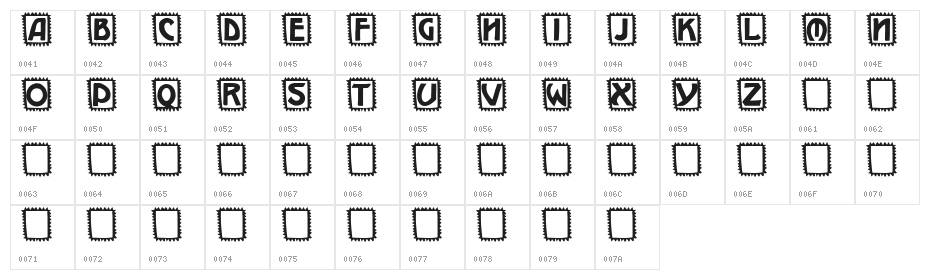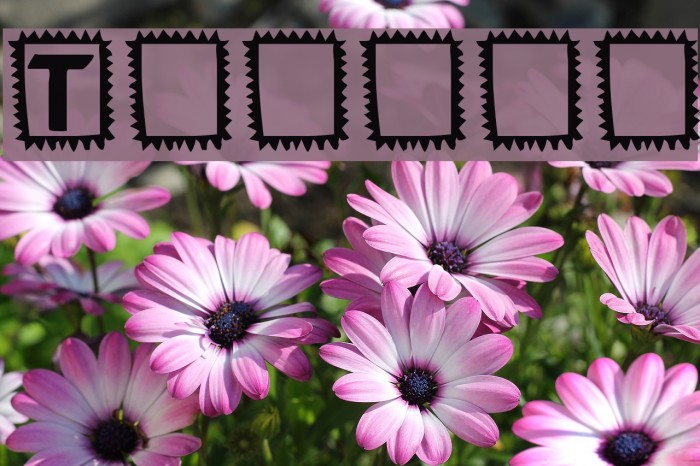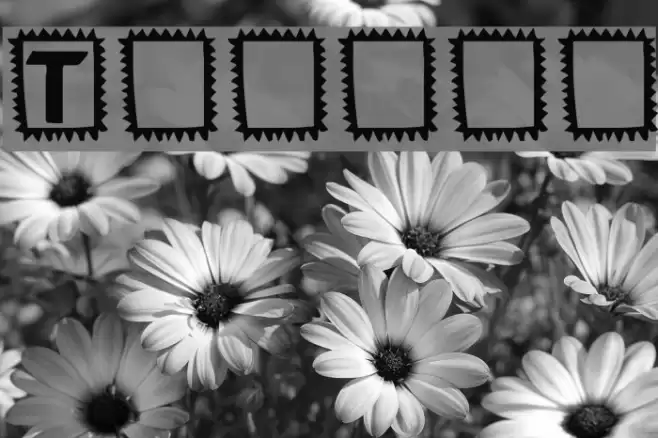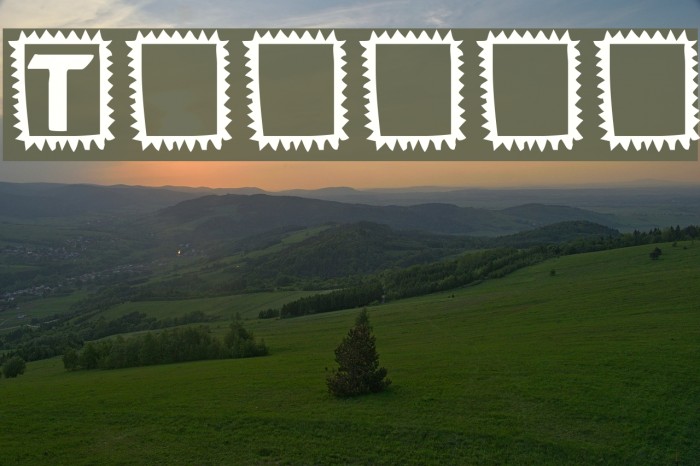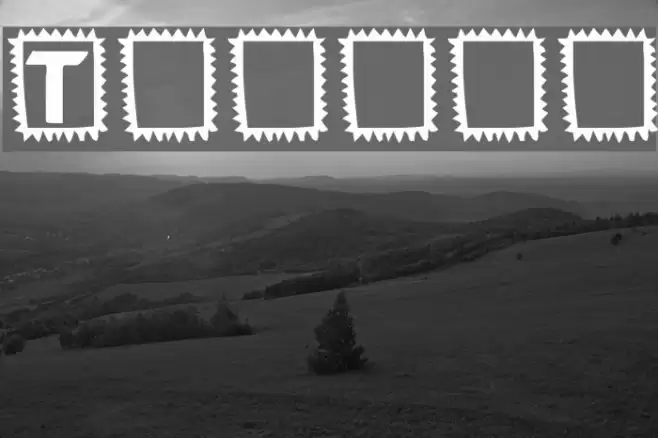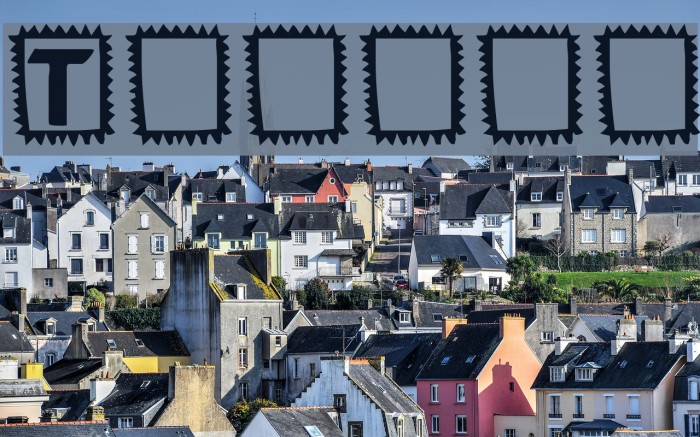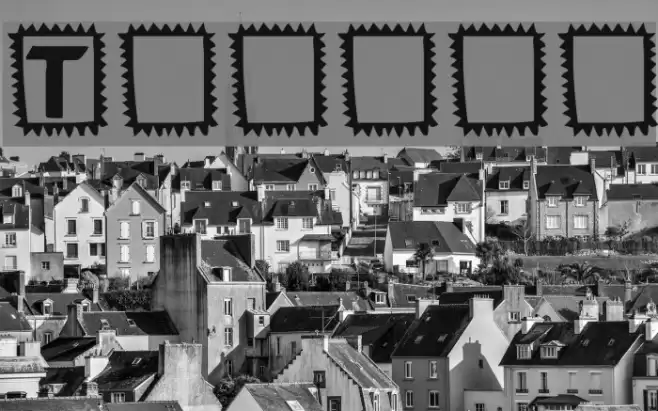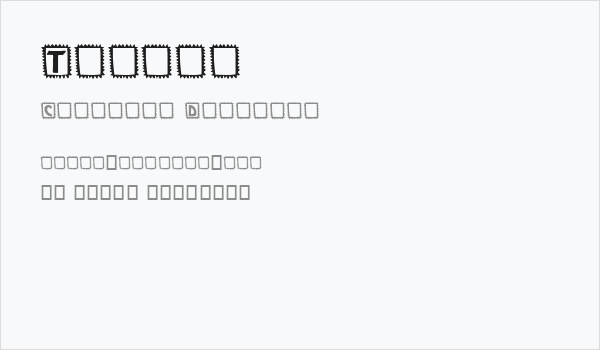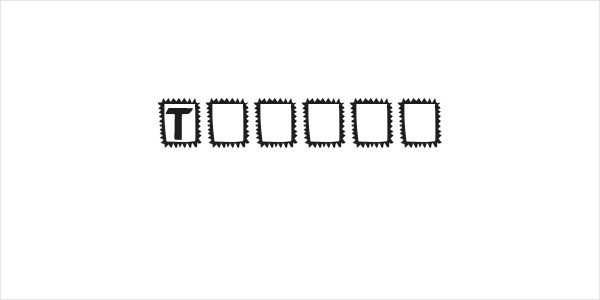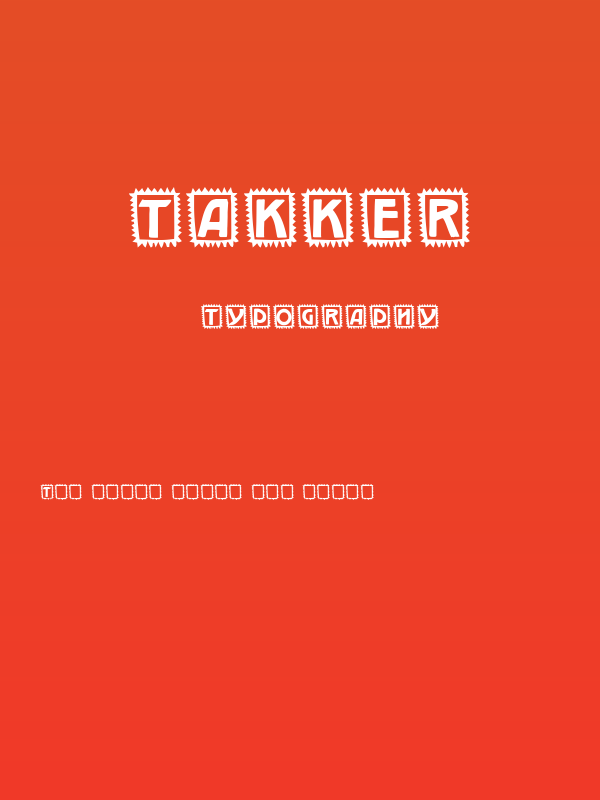
Takker Font
Takker Description
This font features a unique and playful design, with each character enclosed in a square frame that resembles a postage stamp. The letters are bold and slightly condensed, with a quirky, jagged edge that adds a sense of fun and creativity. The uppercase letters are distinct and easily legible, making them suitable for eye-catching headlines or titles. The overall style is decorative and modern, with a touch of whimsy that makes it stand out. The font's boldness and distinctive framing make it ideal for projects that require a strong visual impact.
| Proposed Projects | Ideal for greeting cards, posters, children's book covers, and playful branding materials. |